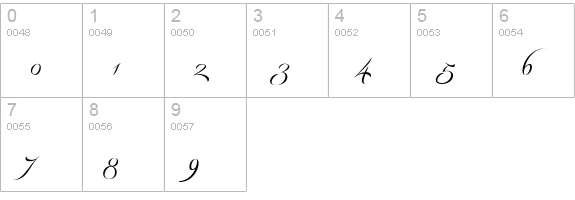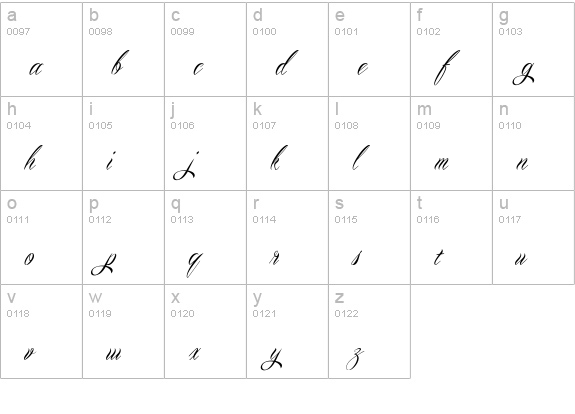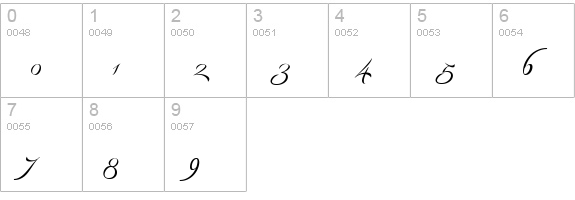
Mardian Demo Font Details
Mardian Demo is a stunning and elegant font that exudes a sense of sophistication and creativity. Its intricate letterforms and delicate strokes make it perfect for adding a touch of luxury to any design project. With its unique combination of calligraphic elements and modern aesthetics, Mardian Demo stands out from the crowd and captures attention effortlessly. This font is not only visually captivating but also versatile in its usage. Whether you are designing a logo, creating a wedding invitation, or crafting a branding project, Mardian Demo will elevate your work to new heights. Its timeless appeal and classic charm make it suitable for a wide range of applications, making it a must-have in any designer's toolkit. One of the best things about Mardian Demo is that it is available for free download at FontsMarket.com. This means that you can enjoy the beauty and elegance of this font without any cost. It's a fantastic opportunity to enhance your designs without breaking the bank. So why wait? Don't miss out on this incredible font. Download Mardian Demo today at FontsMarket.com and unleash your creativity with a font that embodies sophistication, elegance, and style.